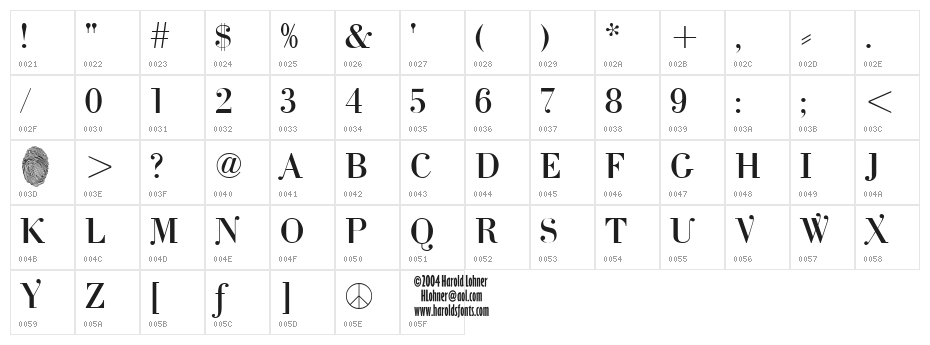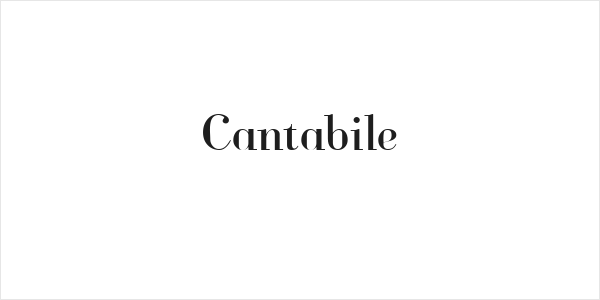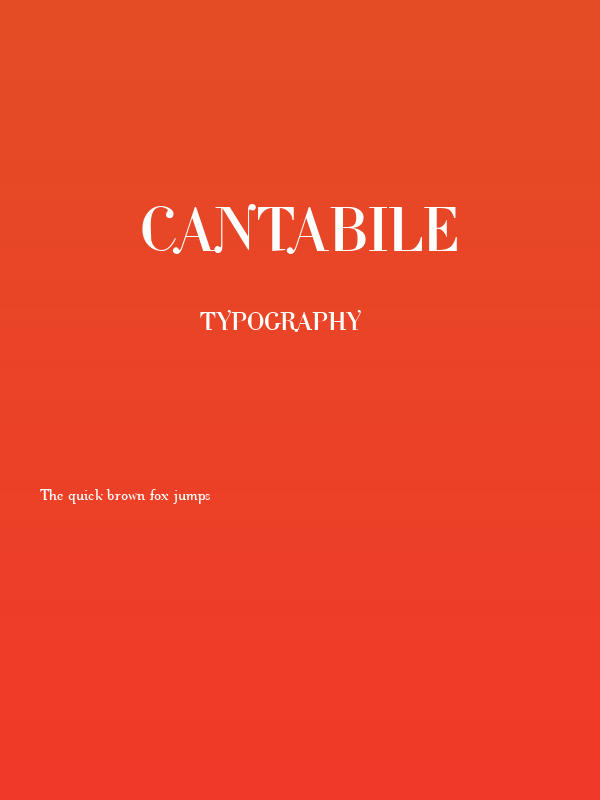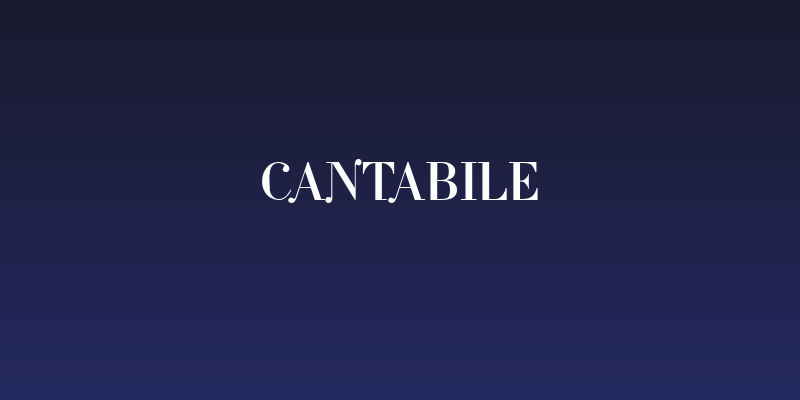
Cantabile Font
Cantabile Description
This font features a unique blend of elegance and boldness, characterized by its high contrast between thick and thin strokes. The serifs are pronounced, adding a touch of sophistication and classic appeal. The uppercase letters exhibit a strong presence, while the lowercase letters maintain a graceful flow. The numerals are distinct and easily readable, with a slight flair that complements the overall style. Special characters are designed with attention to detail, enhancing the font's decorative nature.